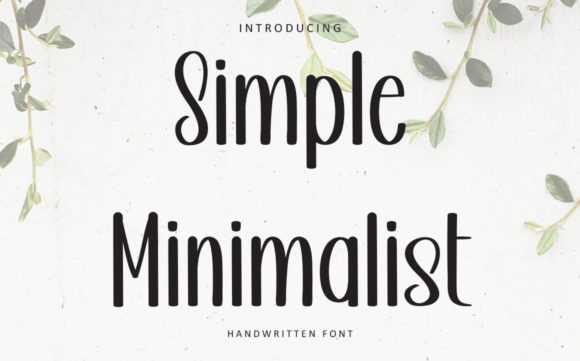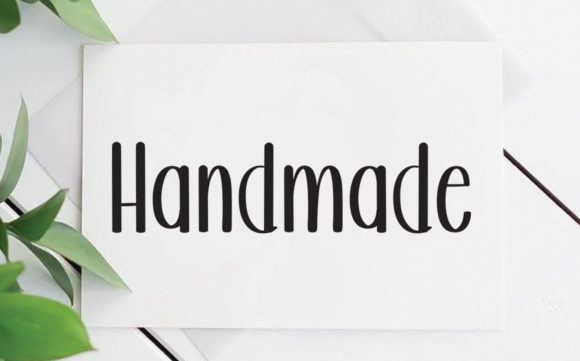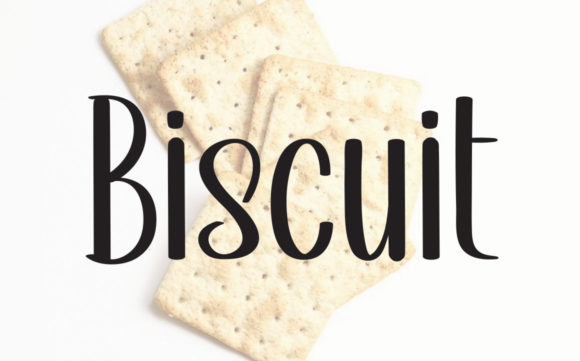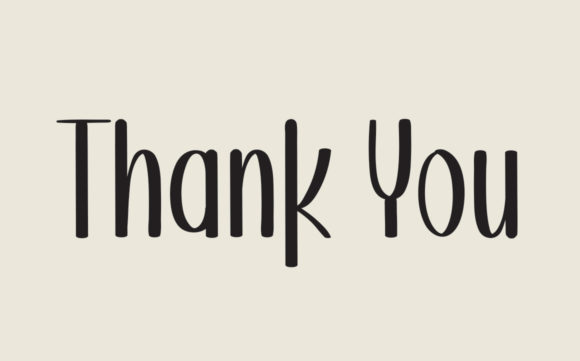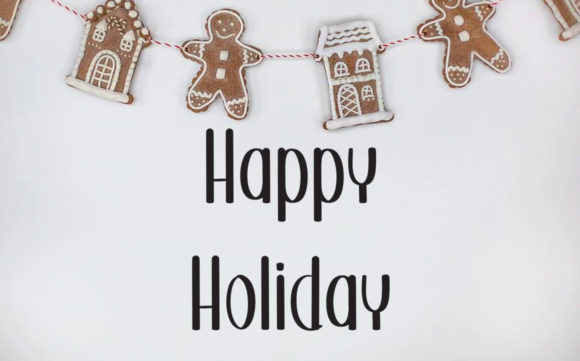
Simple Minimalist Font
About Simple Minimalist Font
Simple Minimalist is a delightful and seamlessly flowing handwritten font, designed to elevate a broad spectrum of design projects. Its clean and uncluttered aesthetic makes it an ideal choice for diverse applications, including wall displays, wedding invitations, social media post logos, eye-catching advertisements, product packaging that exudes simplicity and sophistication, modern product designs, labels that convey a minimalist elegance, professional photography with a subtle touch, discreet watermarks that enhance your brand identity, invitations that reflect a sleek aesthetic, and stationery that embodies simplicity and style.
Whether you’re crafting a visually appealing wall display, setting a refined tone for a wedding invitation, establishing a modern brand identity with a logo for social media, or creating sleek advertisements, Simple Minimalist’s elegant and flowing design ensures that your typography is both impressive and visually pleasing.
In the realm of product packaging and design, this font adds a layer of sophistication and simplicity, allowing your products to stand out with a contemporary charm. Its versatility is evident in label designs, contributing to a streamlined visual identity for your products. Simple Minimalist seamlessly integrates into various design contexts, making it a valuable asset for photographers seeking a font that complements their work, adding a touch of modernity to watermarks.
Whether you’re working with physical materials or digital platforms, Simple Minimalist is a reliable choice. It’s perfect for creating invitations for a variety of occasions and designing clean and engaging social media posts. This font ensures a polished and visually appealing presentation across different mediums.
In conclusion, Simple Minimalist’s beauty and simplicity make it an excellent choice for projects that demand impressive and understated typography. Its handwritten style adds a modern and clean touch to a range of design endeavors, making it a valuable tool for creative professionals across different fields.